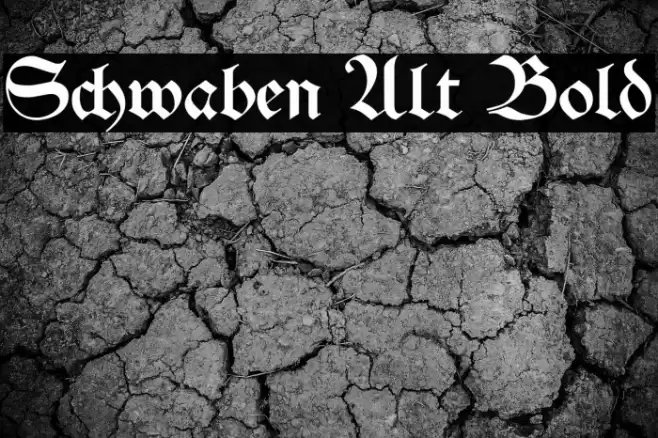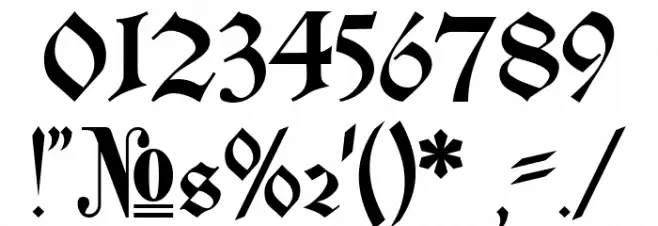
Schwaben Alt Bold Font
Schwaben Alt Bold Description
This font exhibits a classic blackletter style, characterized by its intricate and ornate letterforms. The uppercase letters are bold and commanding, with sharp angles and dramatic strokes that convey a sense of historical elegance. The lowercase letters maintain the same decorative quality, with unique curves and flourishes that add to the font's overall complexity. The numerals are equally stylized, featuring a consistent weight and design that complements the alphabetic characters. Special characters are included, maintaining the same aesthetic with elaborate details. This font is perfect for projects that require a touch of medieval or gothic flair, offering a distinct and memorable visual impact.
A bold, blackletter font with intricate, ornate letterforms and a historical elegance from Uncategorized fonts.
- Proposed Projects: Ideal for use in historical documents, gothic-themed designs, book covers, posters, and branding that seeks a vintage or medieval aesthetic.